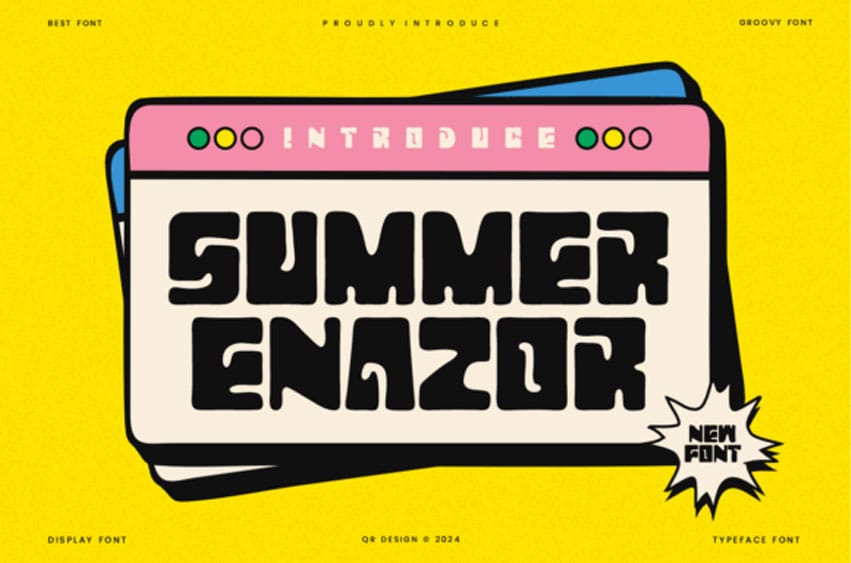
Summer Enazor Font is a bold and authentic display font. The font is suitable for any branding project, like logos, sports, and many more.
Outstanding in a wide range of contexts.